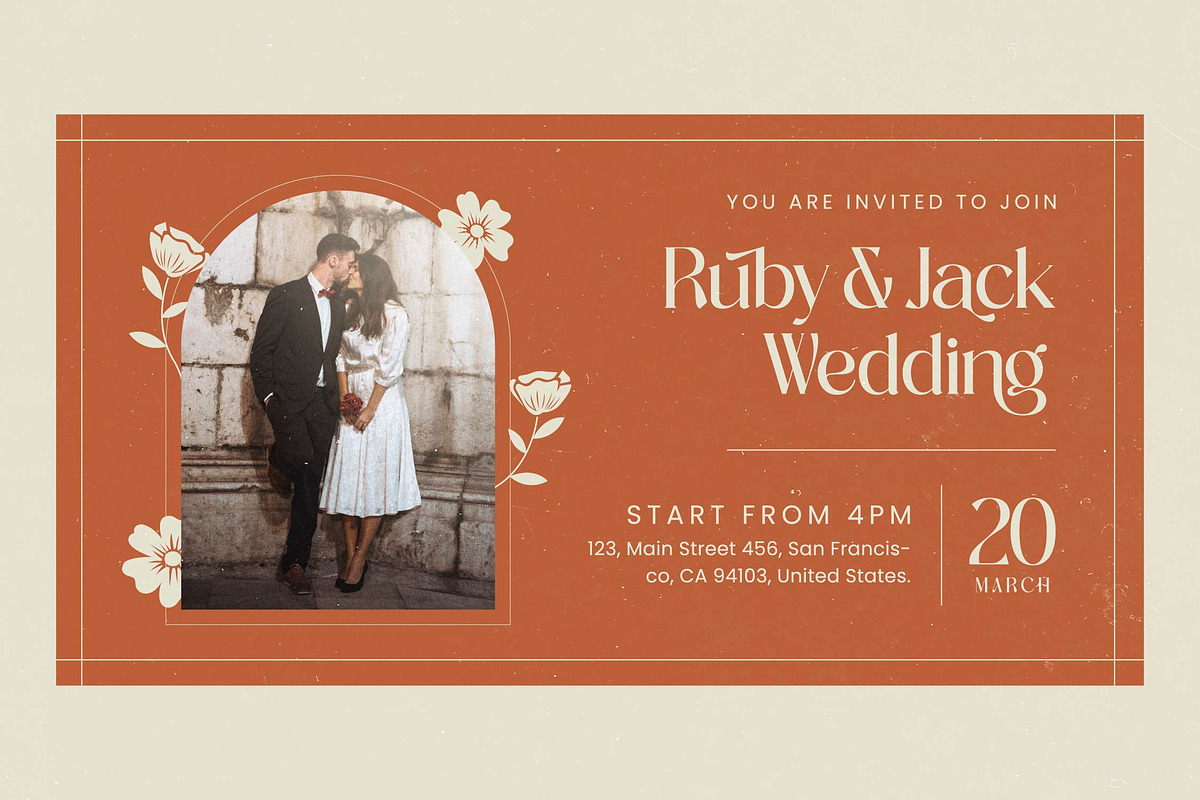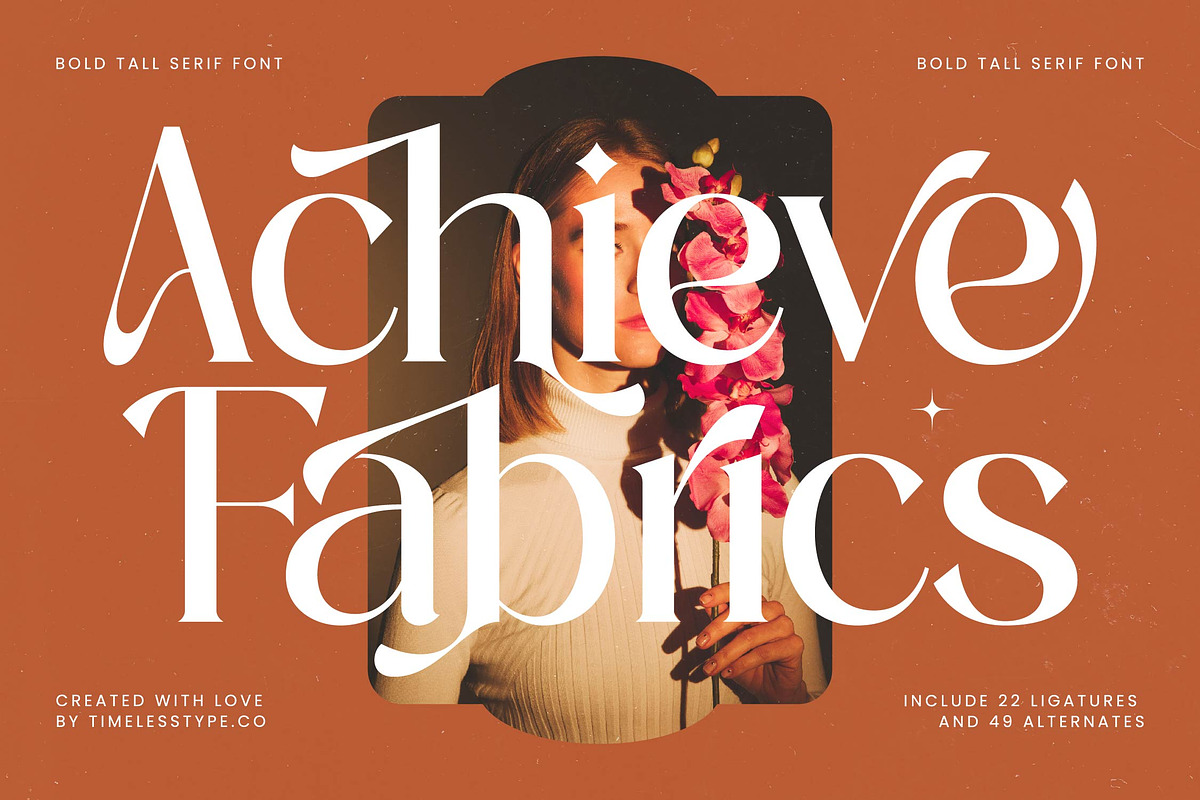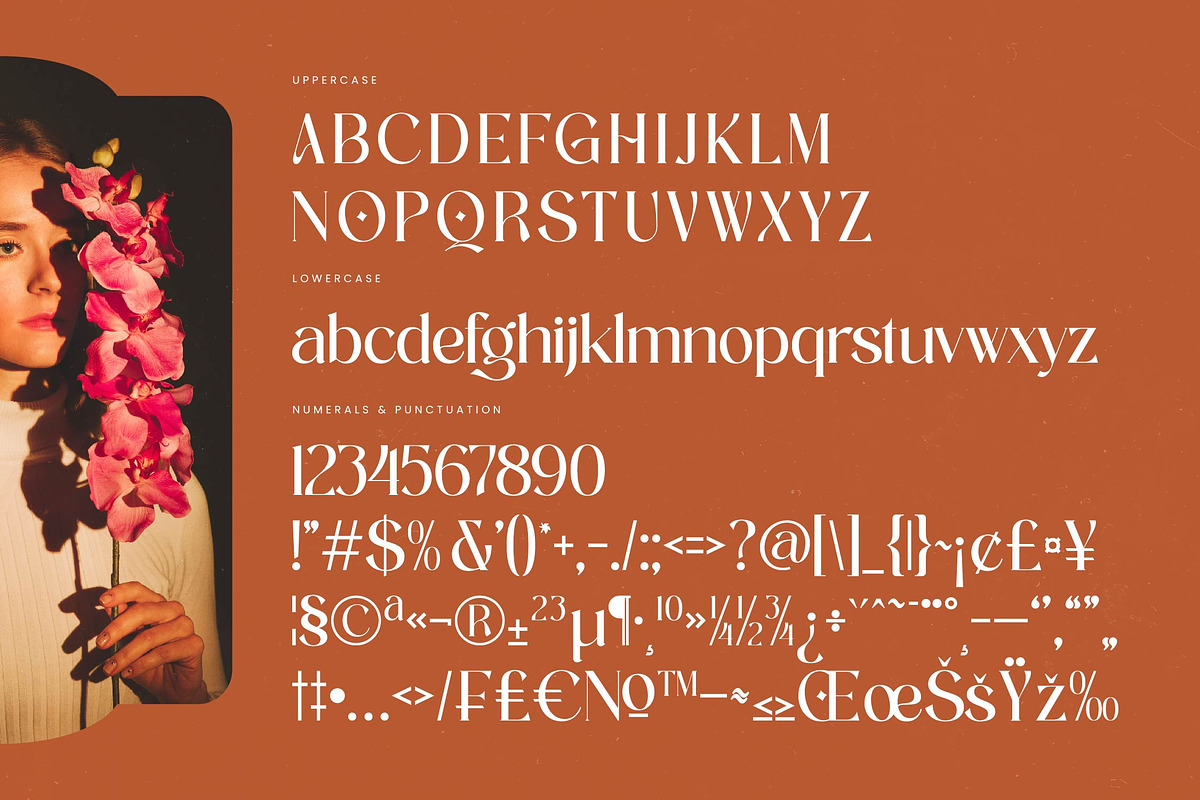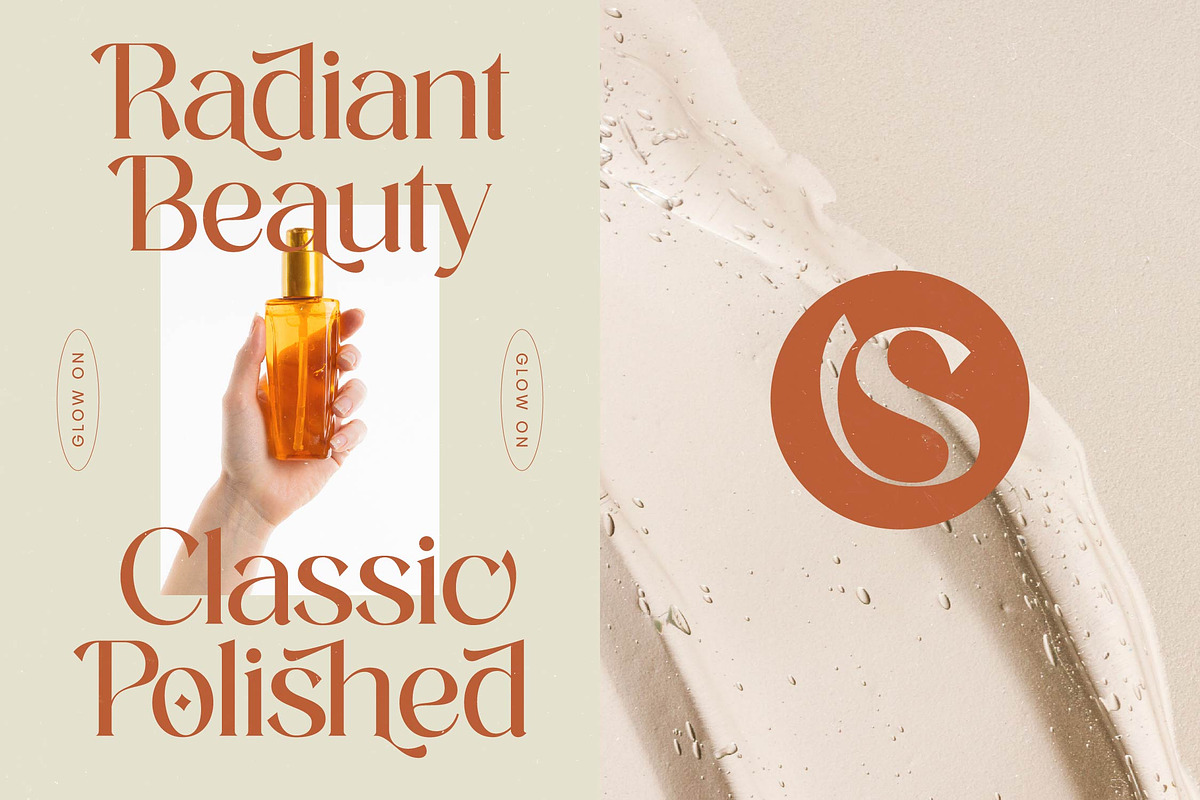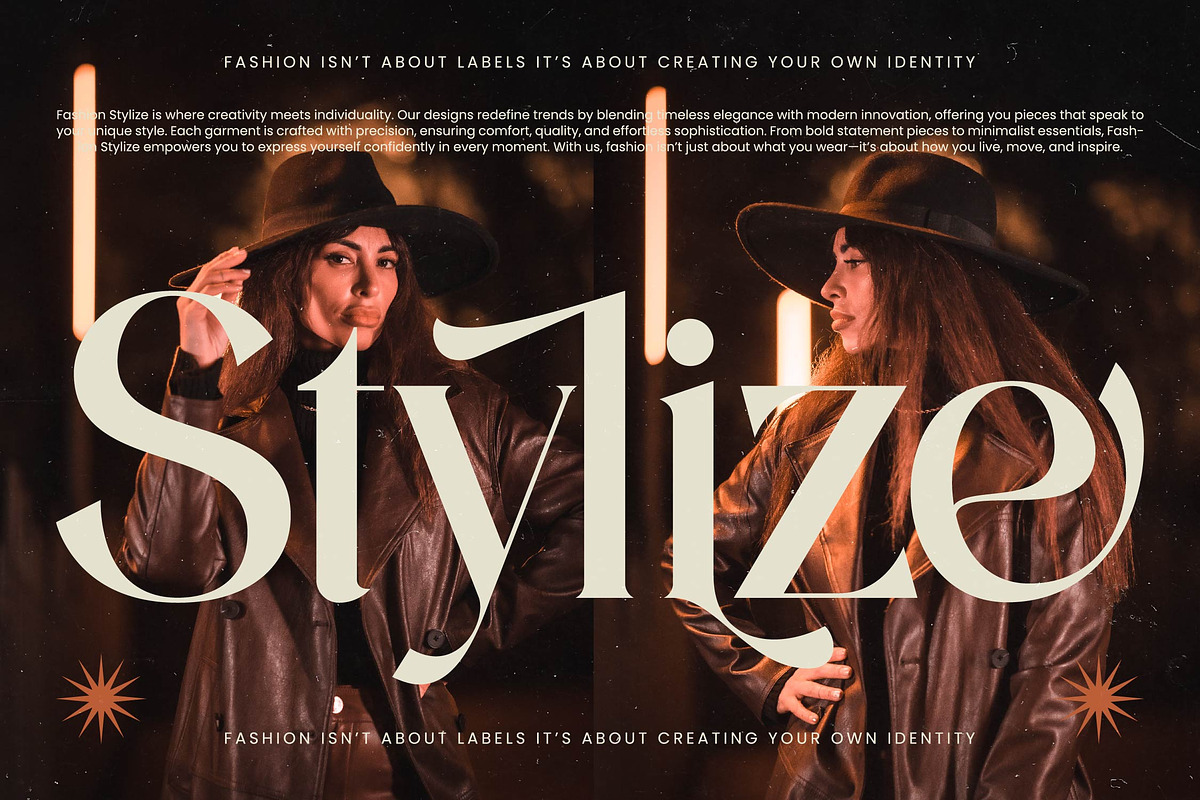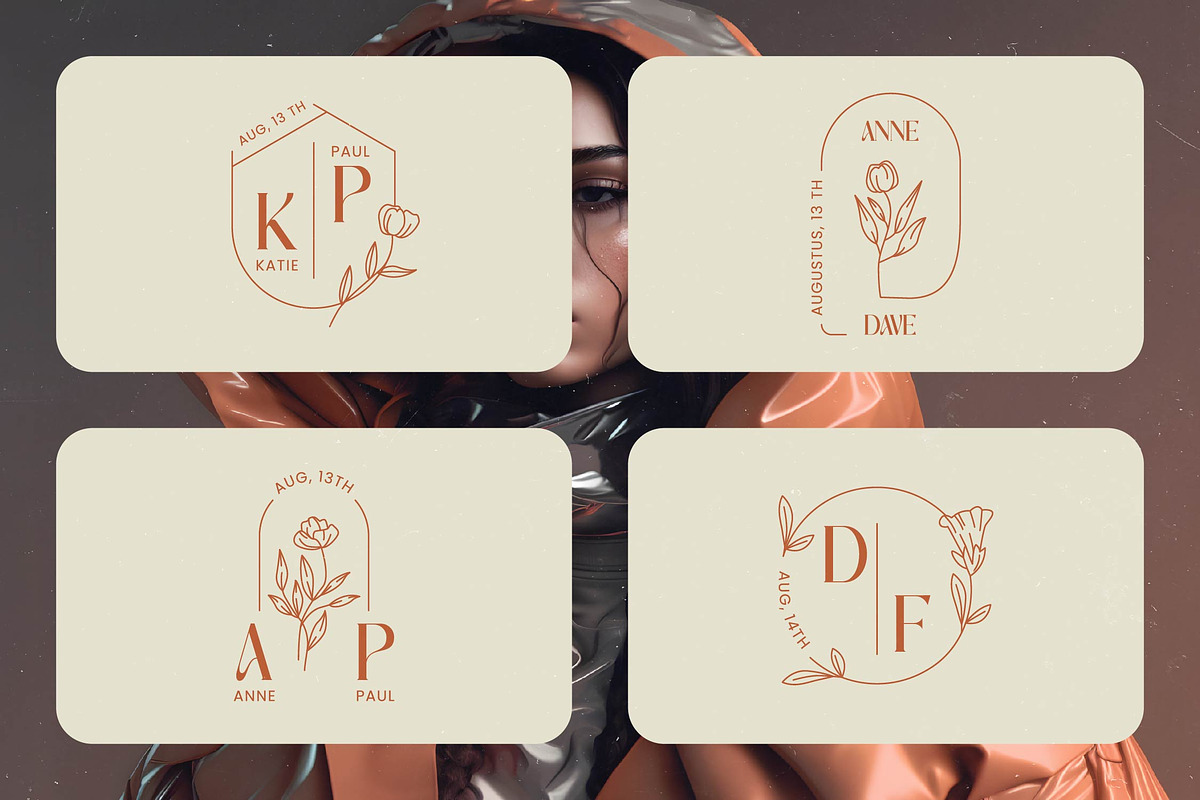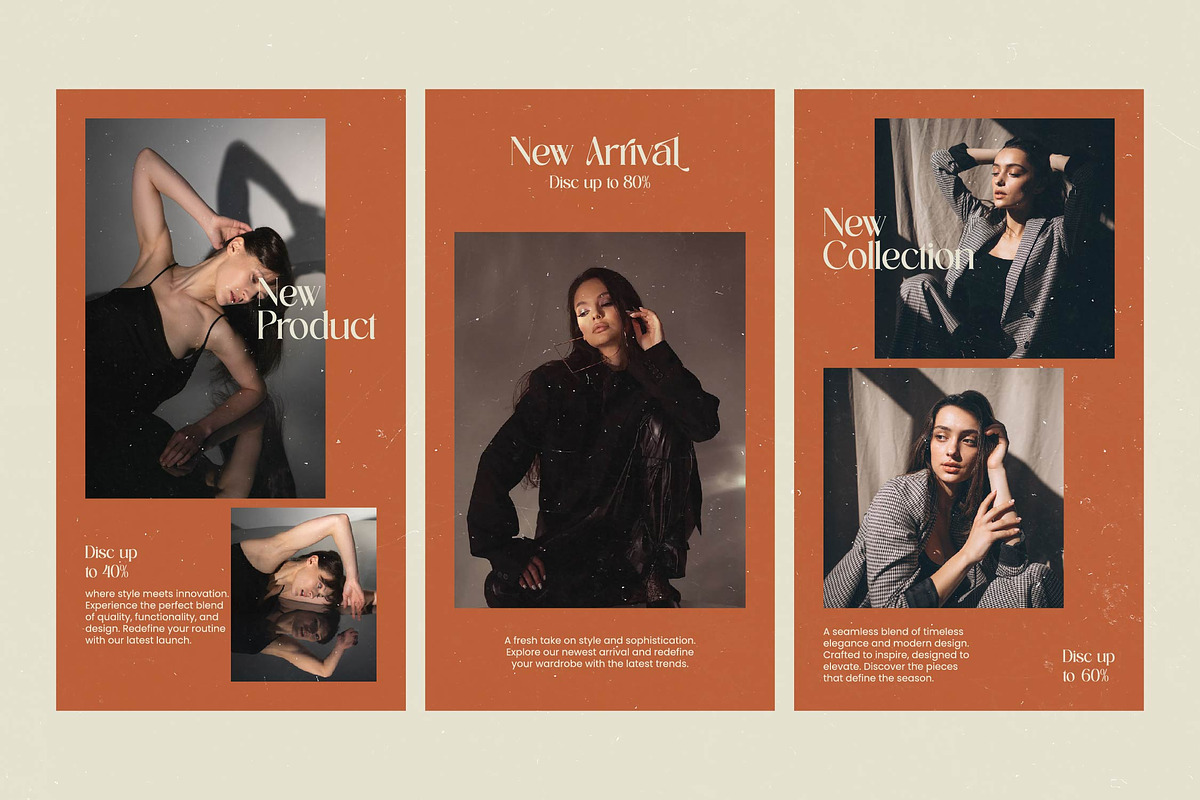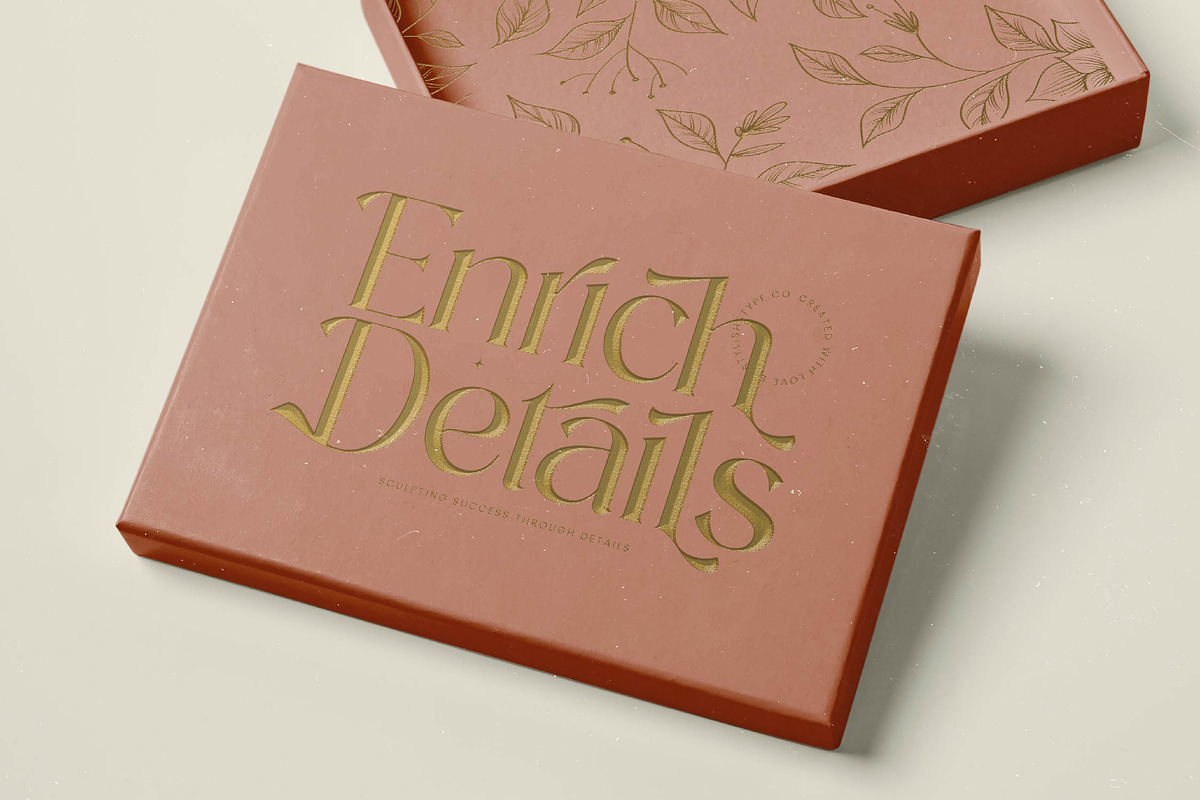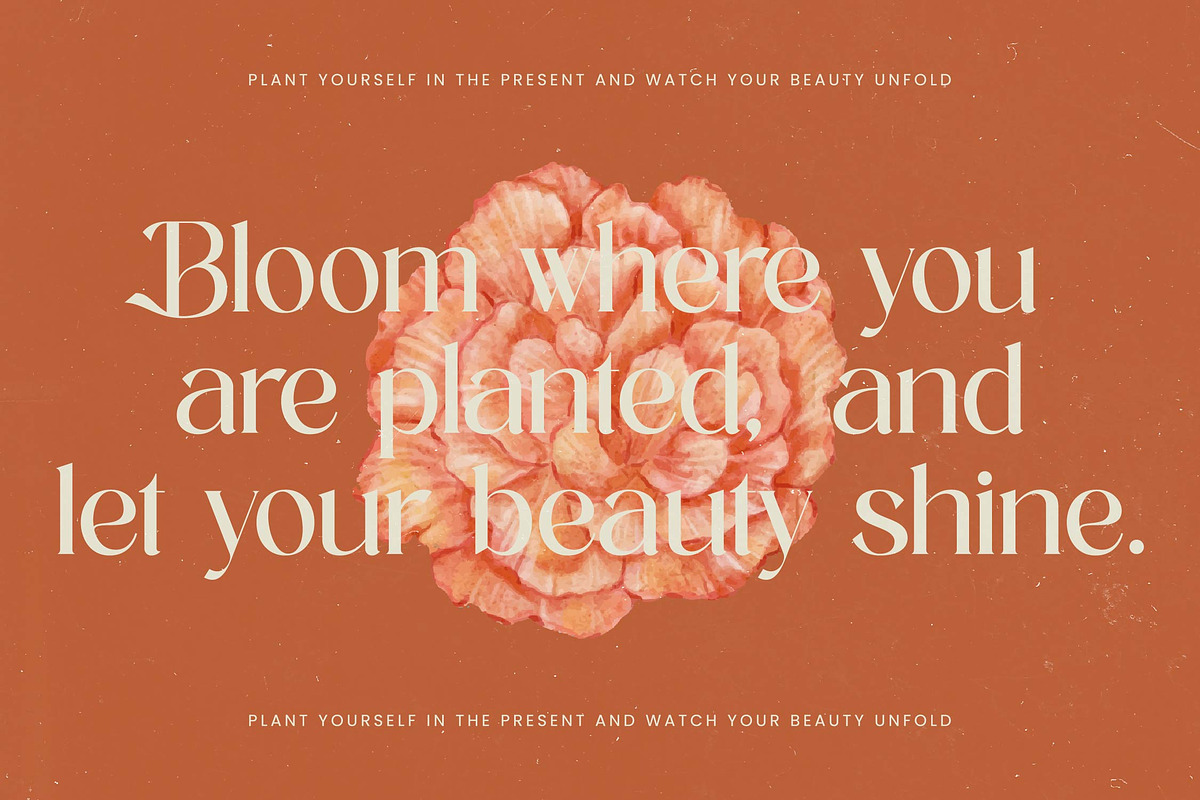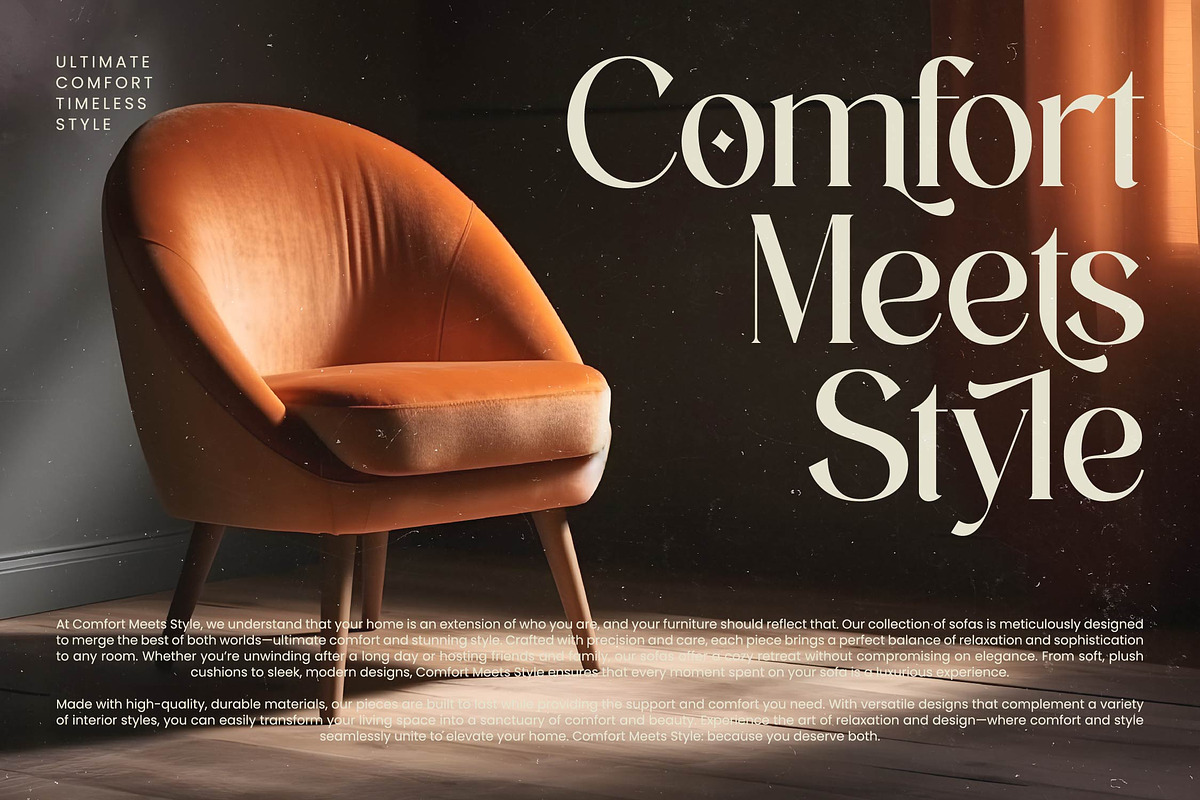
Achieve Fabrics Modern Serif
Experience the height of sophistication with Achieve Fabrics, a typeface designed to command attention with its statuesque presence and flowing elegance. This font transforms every word into a statement of high-end design and refined taste.
Inspired by the fluid textures of premium textiles and the sharp precision of editorial layout design, this typeface captures a warm, nostalgic atmosphere balanced with contemporary sharpness. It evokes the feeling of a sun-drenched atelier where every detail is crafted with intention and grace.
This modern serif display is engineered for maximum luxury typography appeal, offering a high-contrast serif profile that ensures an unforgettable branding impact. It is the quintessential editorial font for those who require their messaging to feel both authoritative and effortlessly chic.
Aligning perfectly with the current modern serif trend, this typeface meets the demand for editorial display fonts that prioritize personality. It stands at the forefront of character-driven typography, providing designers with a versatile tool to capture the "quiet luxury" aesthetic dominating the creative world today.
Ideally suited for high-impact logo design and comprehensive branding projects, this font shines in editorial layouts and luxury packaging. Whether applied to a bespoke wedding invitation suite or a high-concept fashion lookbook, it brings a polished, professional finish to every surface.
The family is packed with creative potential, featuring a robust set of 22 ligatures and 49 unique alternates to customize your type. With full multilingual support and a wide array of international characters, it provides a global solution for sophisticated design across borders.
- Ligature 22 Alternate 49